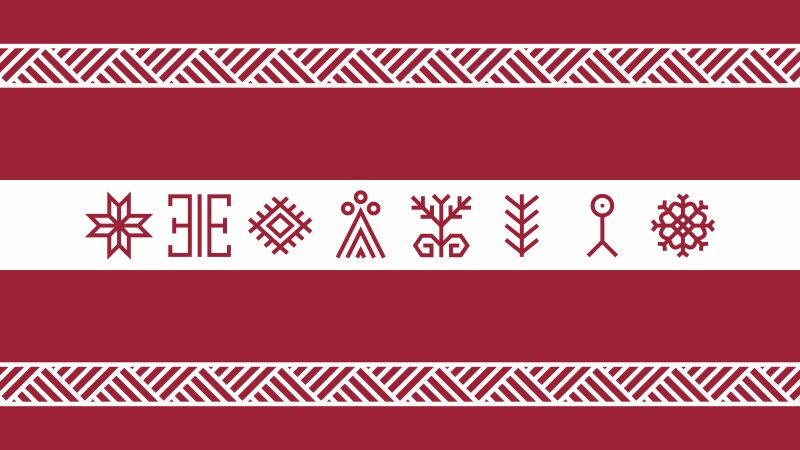
Looking to add a touch of whimsy and creativity to your next project? Look no further than Auseklis, a unique and versatile dingbat font designed by GGBotNet. With its intricate and diverse collection of symbols, this font is perfect for adding an extra layer of visual interest to any creative endeavor.
Whether you're designing a logo, creating a poster, or crafting a digital illustration, Auseklis offers endless possibilities for enhancing your work with its playful and distinctive style. Embrace the endless potential of this font in your next design project and watch as it transforms your creative vision into something truly extraordinary.